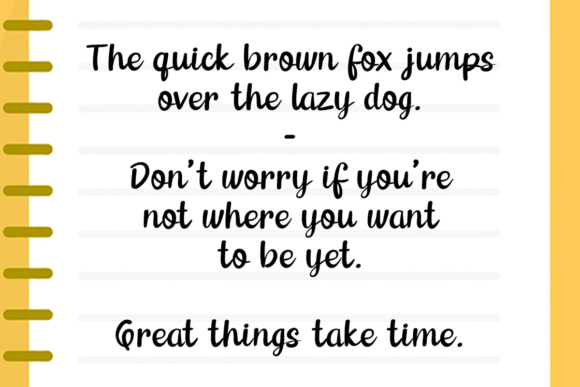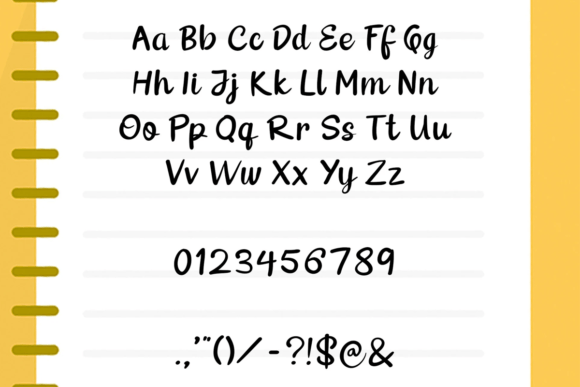
Introduction to Permanent Marker Font
Imagine letters that look like they’ve been drawn with a bold, permanent marker.
Permanent Marker font is playful and handmade, with each letter shaped like it’s been painted by hand It’s a fun, casual style that stands out on posters, invitations, and anything you want to add a touch of personality to.
Key Features of Permanent Marker Font